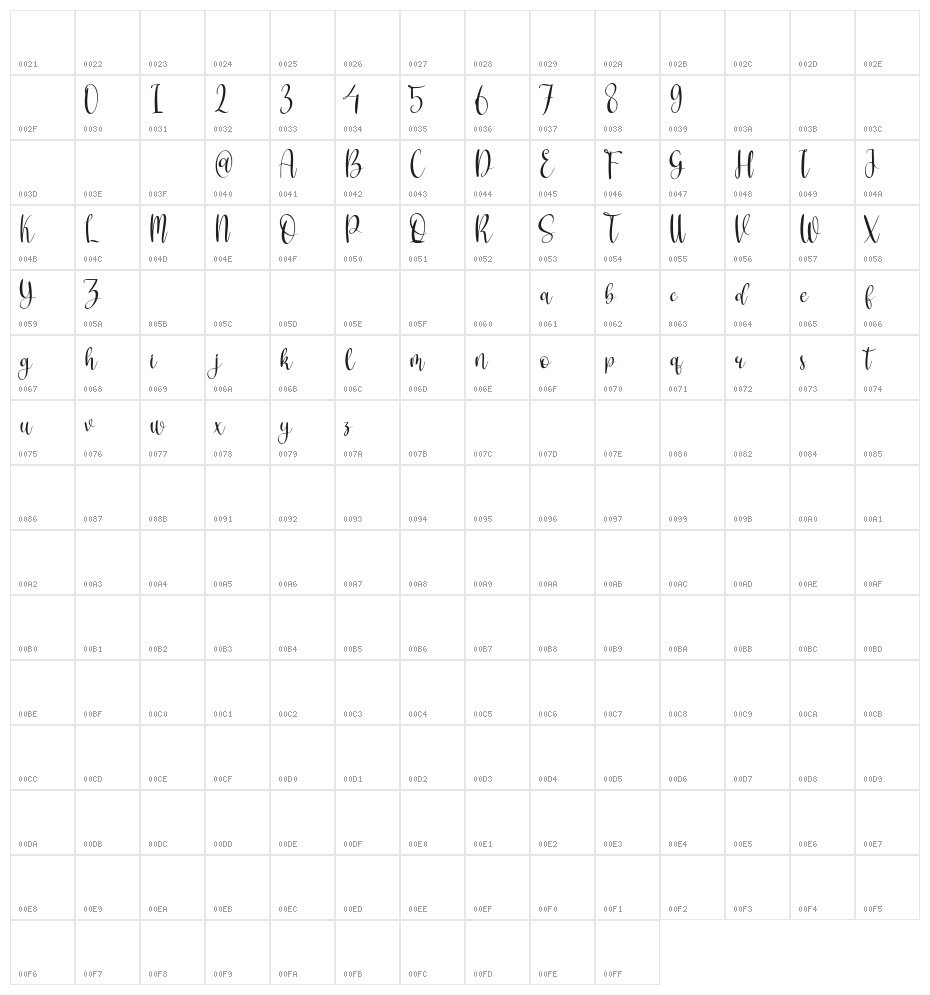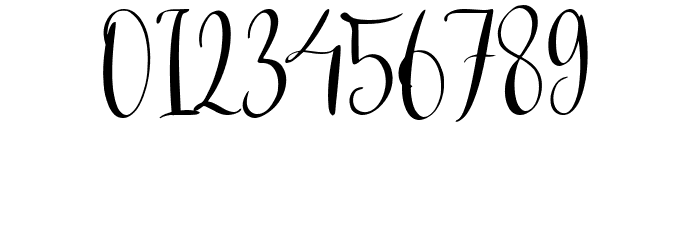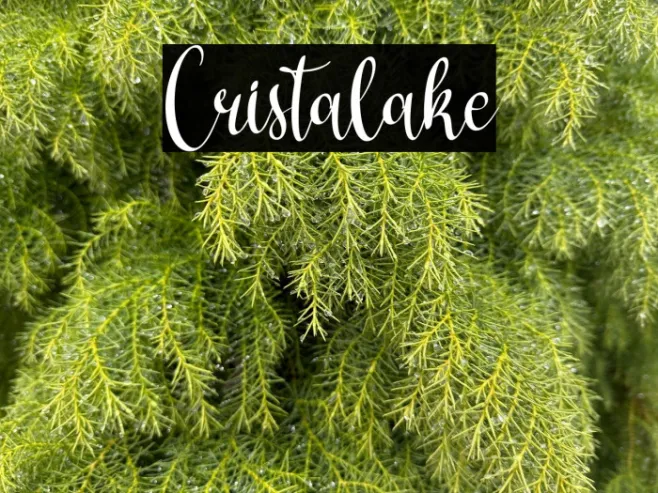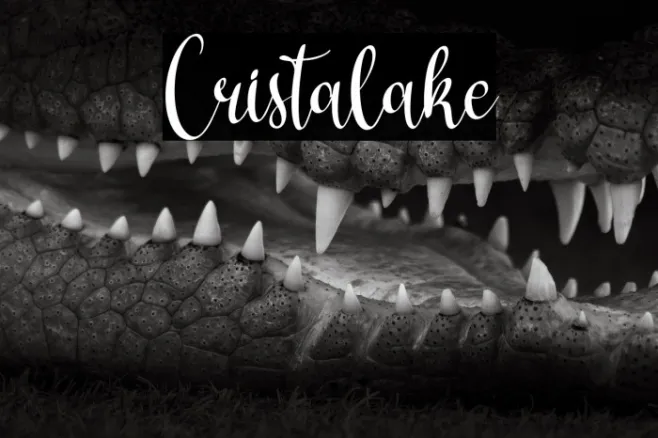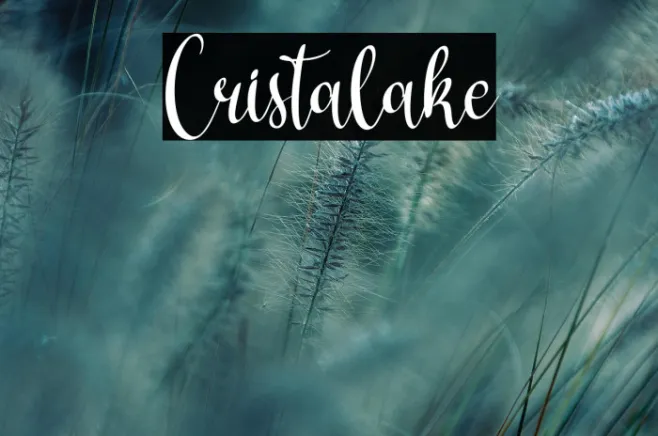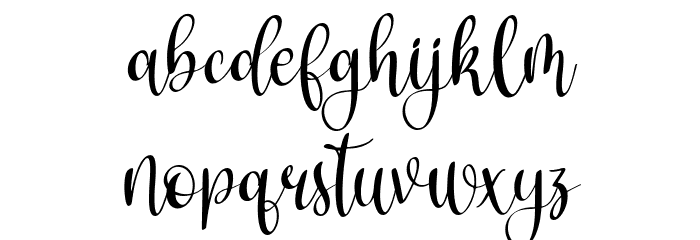
Cristalake Font
Cristalake Description
This font features an elegant and flowing script style, characterized by its smooth, cursive letterforms and graceful loops. The uppercase letters are particularly ornate, with sweeping ascenders and descenders that add a touch of sophistication. The lowercase letters maintain a consistent style, offering a harmonious balance between readability and decorative flair. The numerals are equally stylish, with a slight slant that complements the overall script aesthetic. This font is ideal for projects that require a personal, handwritten touch, such as invitations, greeting cards, and branding materials.